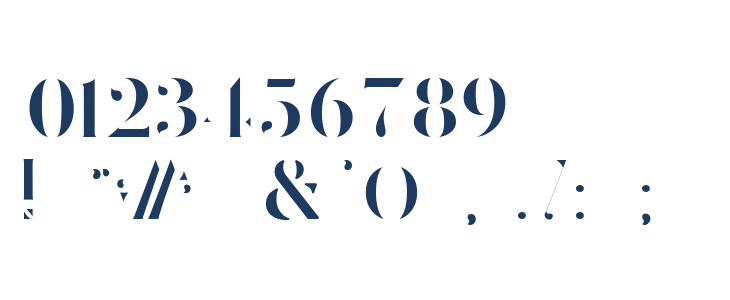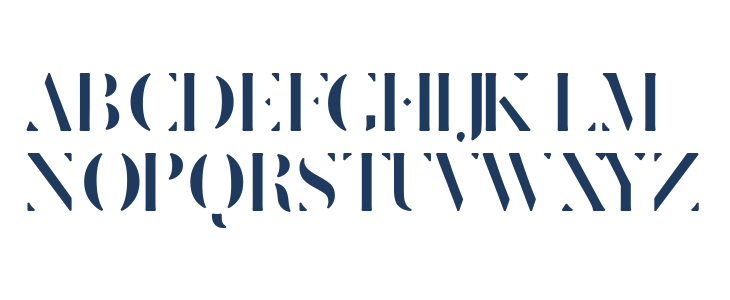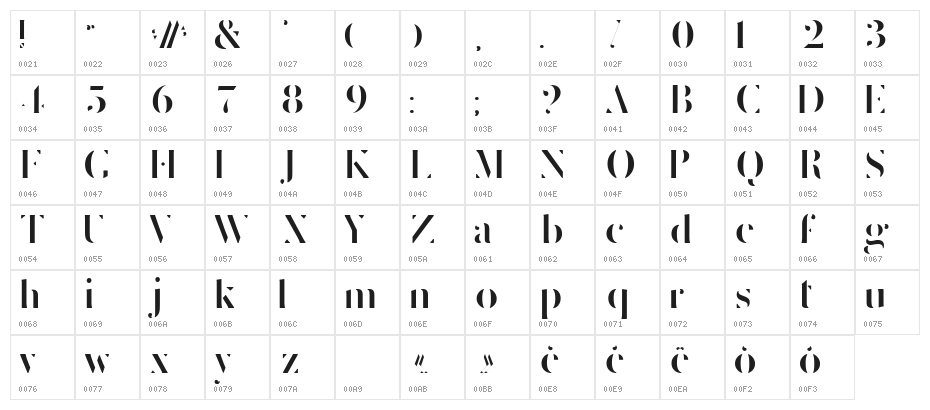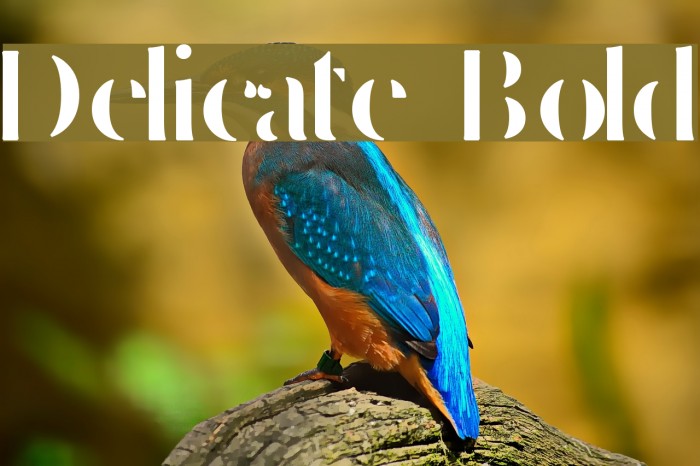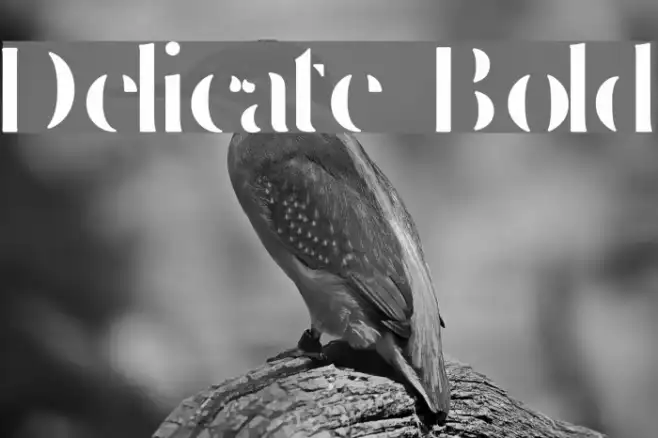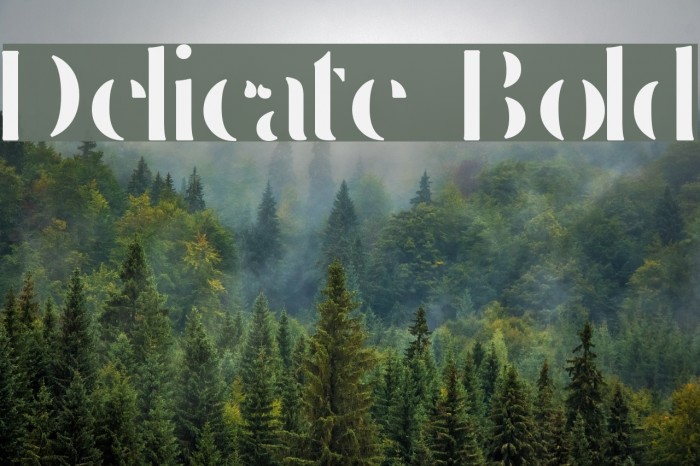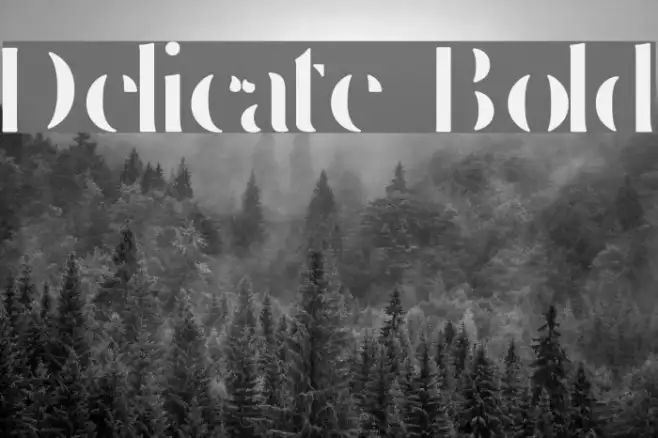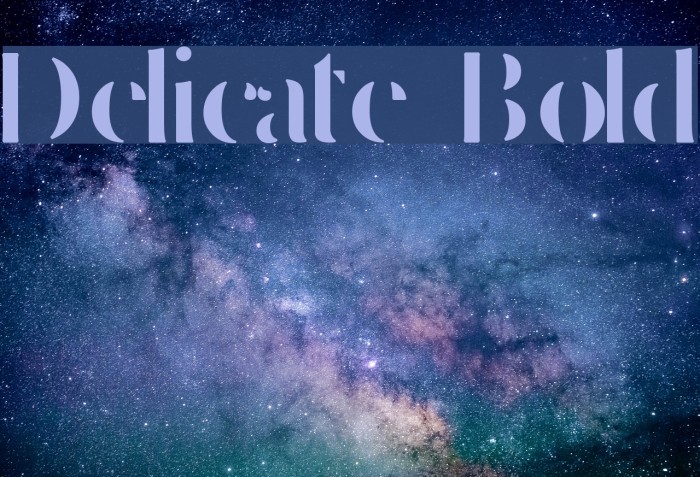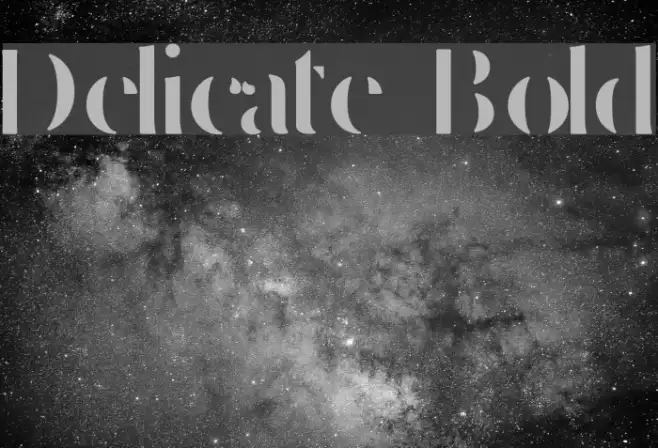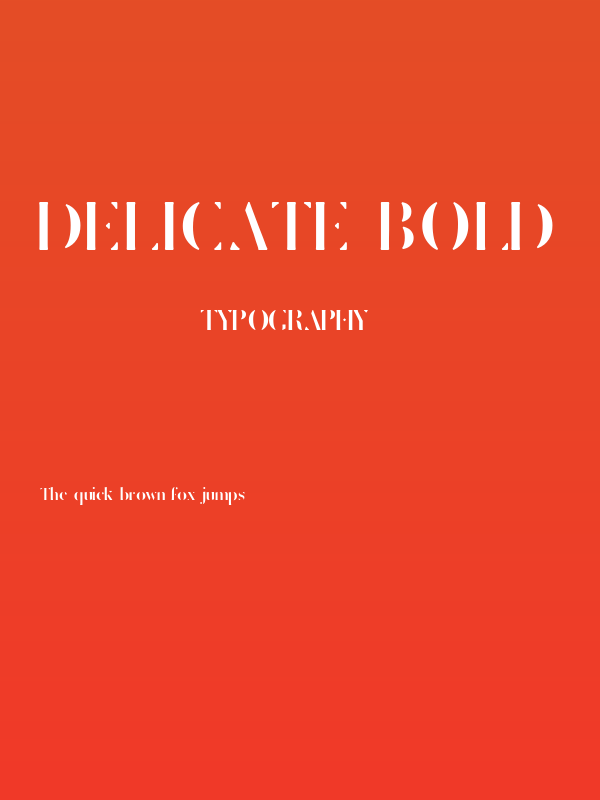
Delicate Bold Font
Delicate Bold Description
This font features a bold, stencil-like design with high contrast between thick and thin strokes. The characters are sharply cut, creating a modern and edgy appearance. The uppercase letters are particularly striking, with their geometric shapes and clean lines. The lowercase letters maintain the same boldness, offering a cohesive look across different text cases. Numbers and special characters follow the same design principles, ensuring uniformity. The font's unique style makes it suitable for attention-grabbing headlines and logos, where a strong visual impact is desired.
| Proposed Projects | Ideal for branding, poster design, and editorial headlines. |